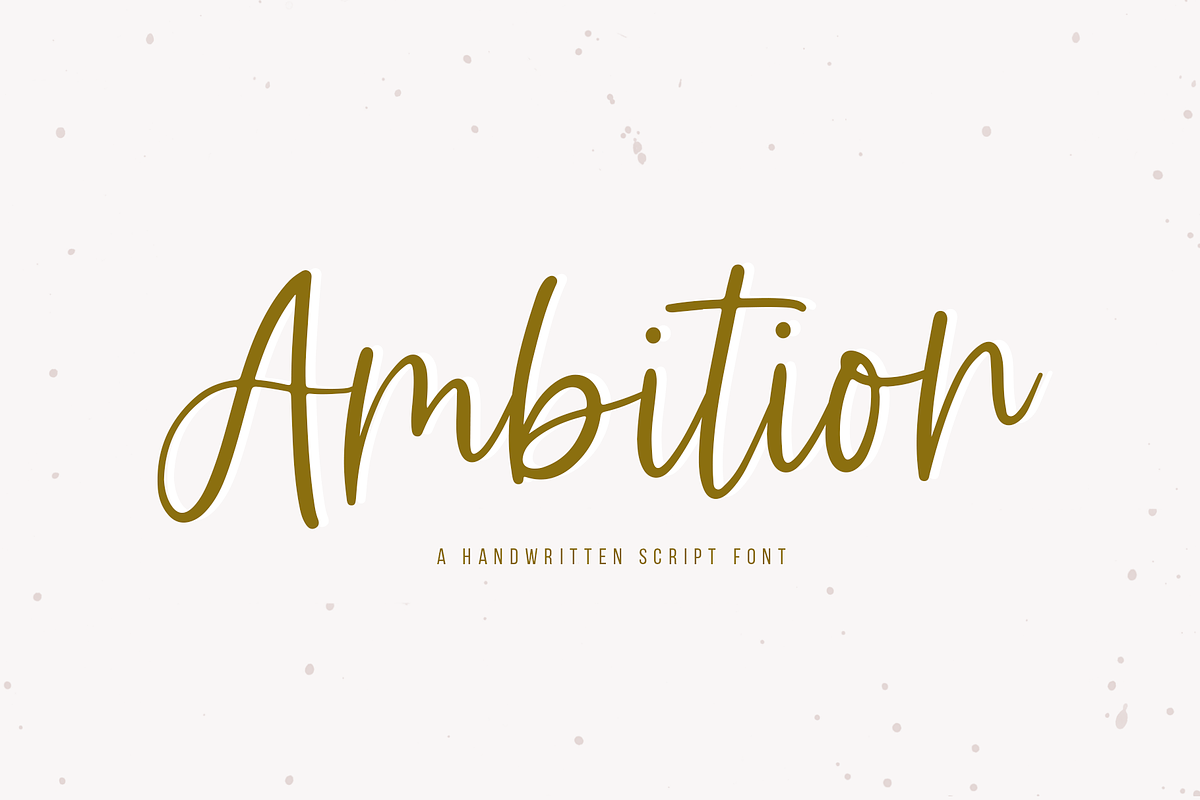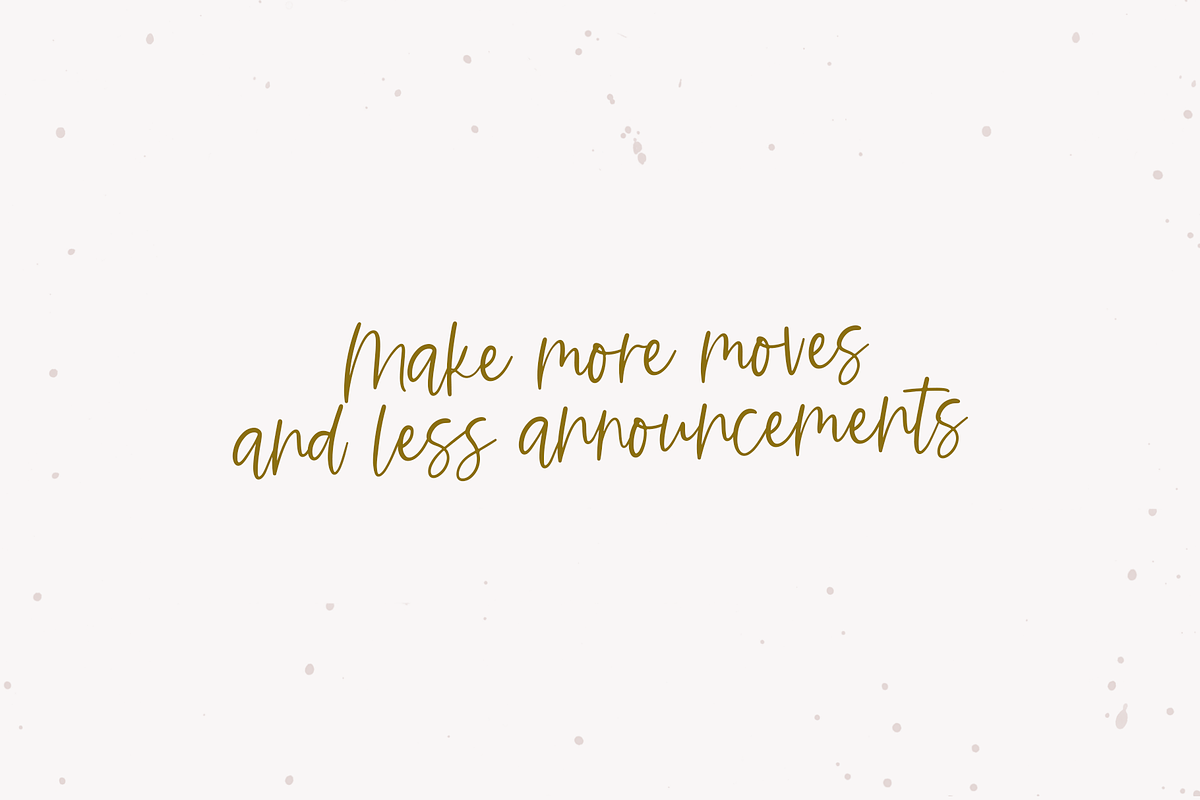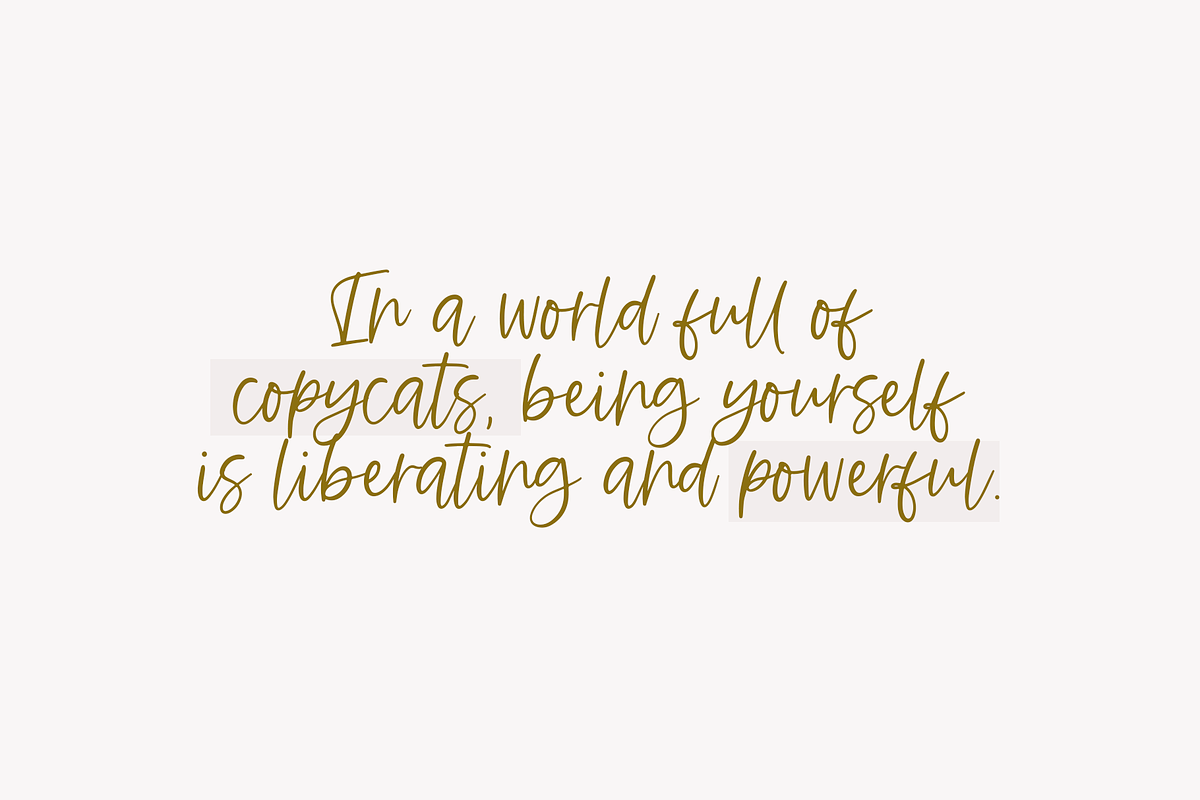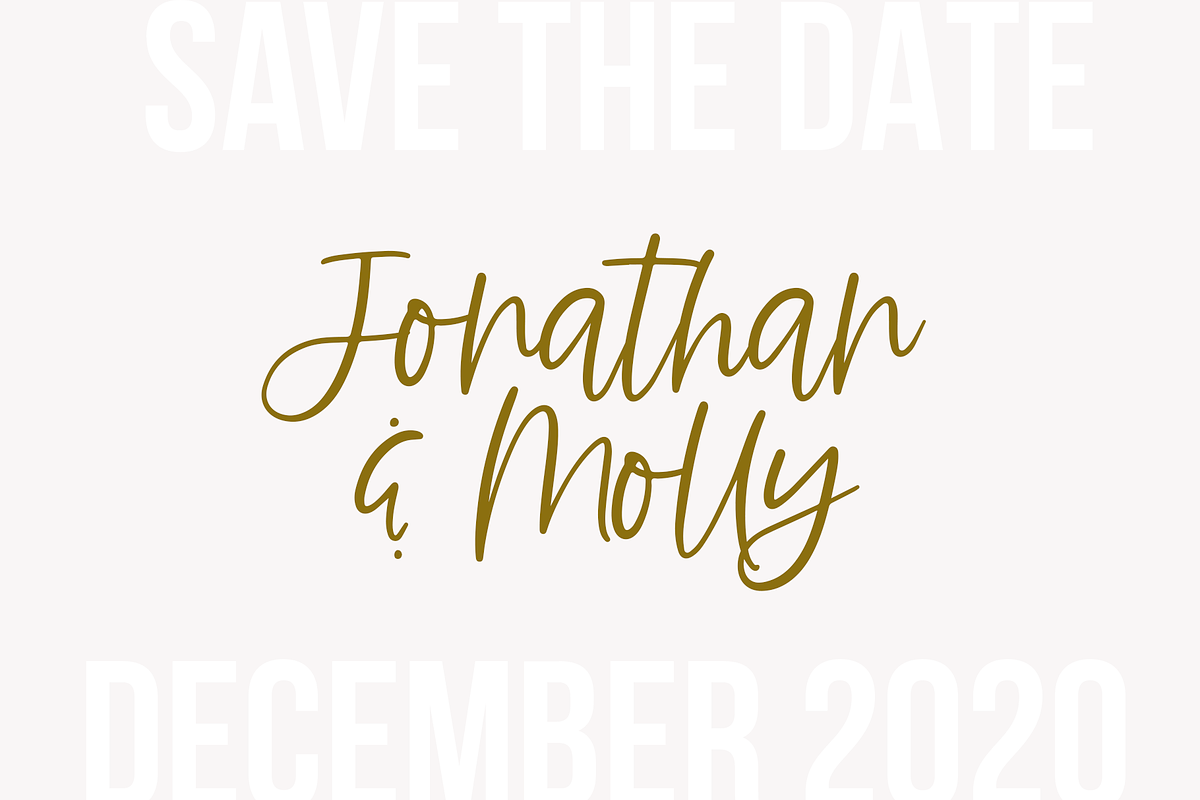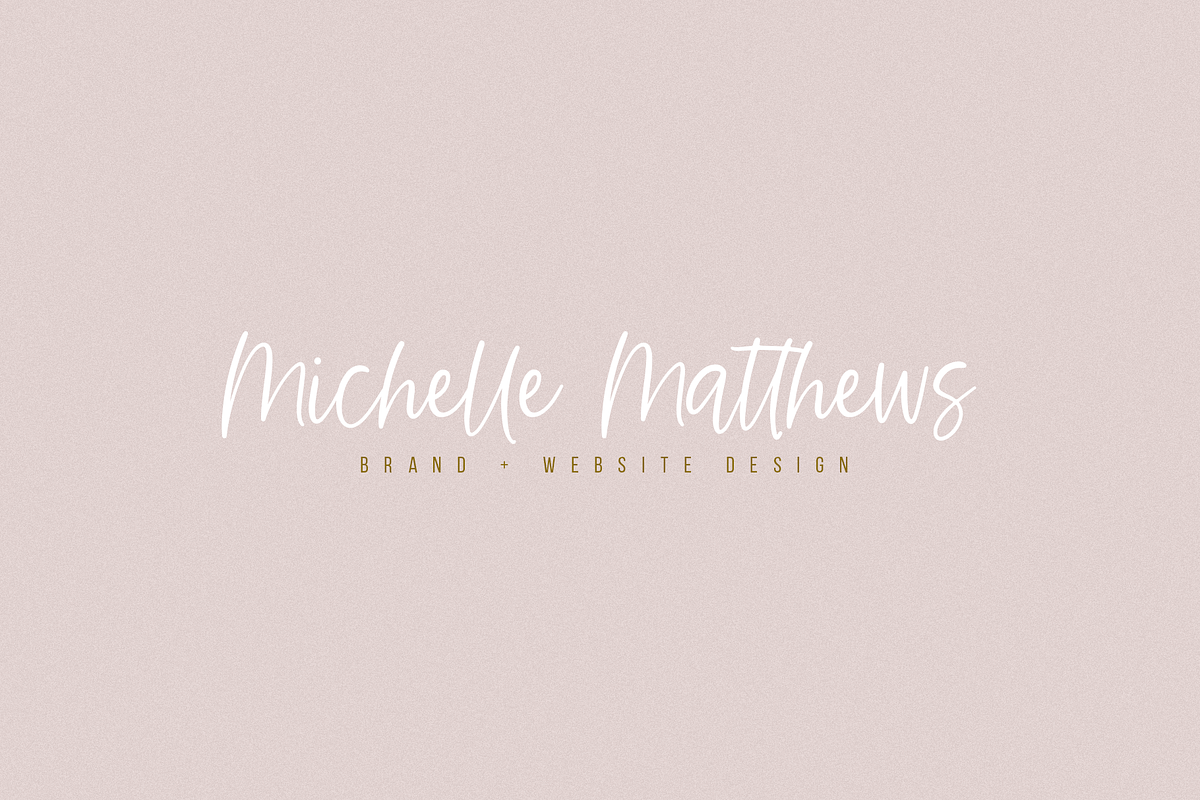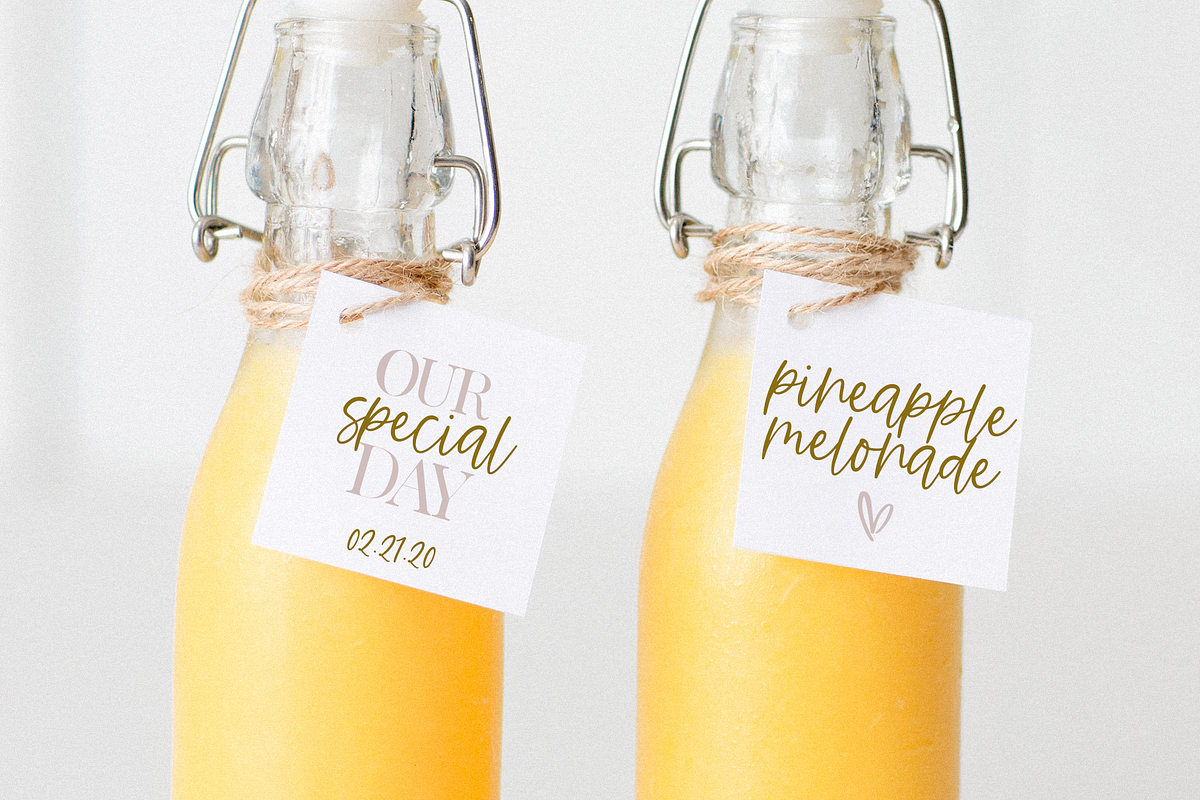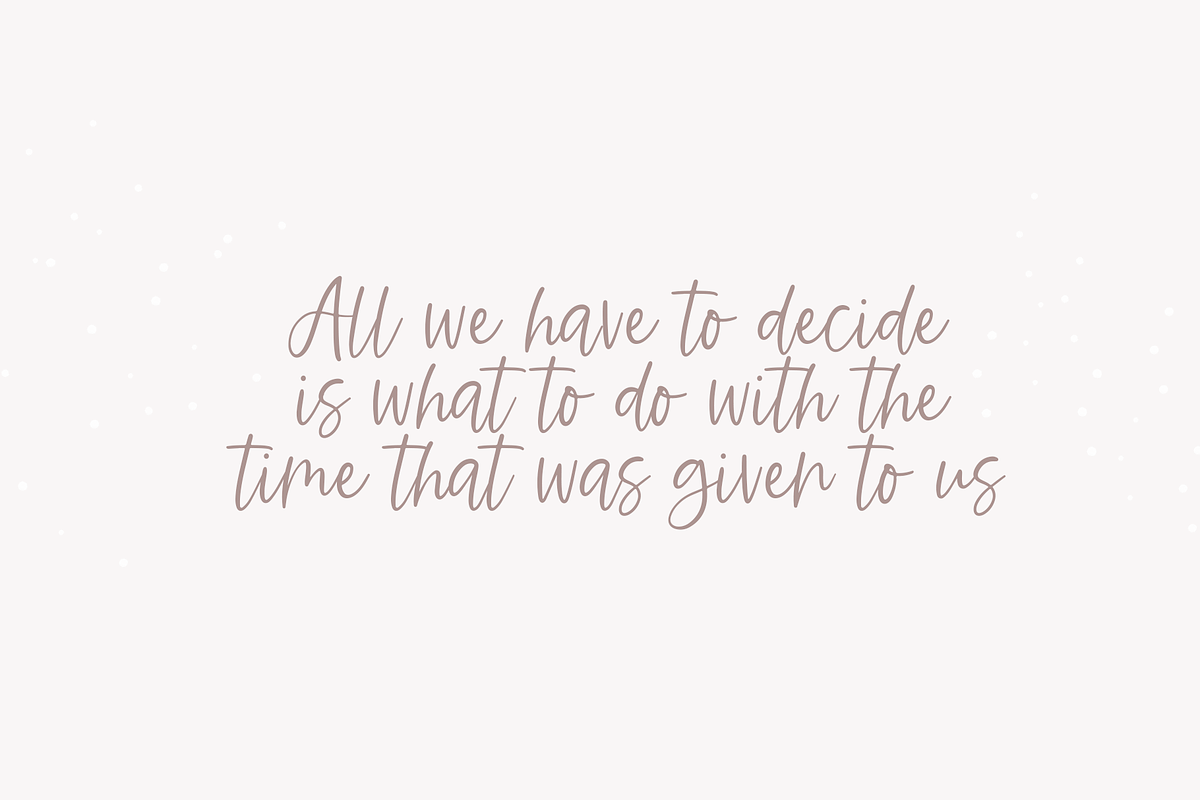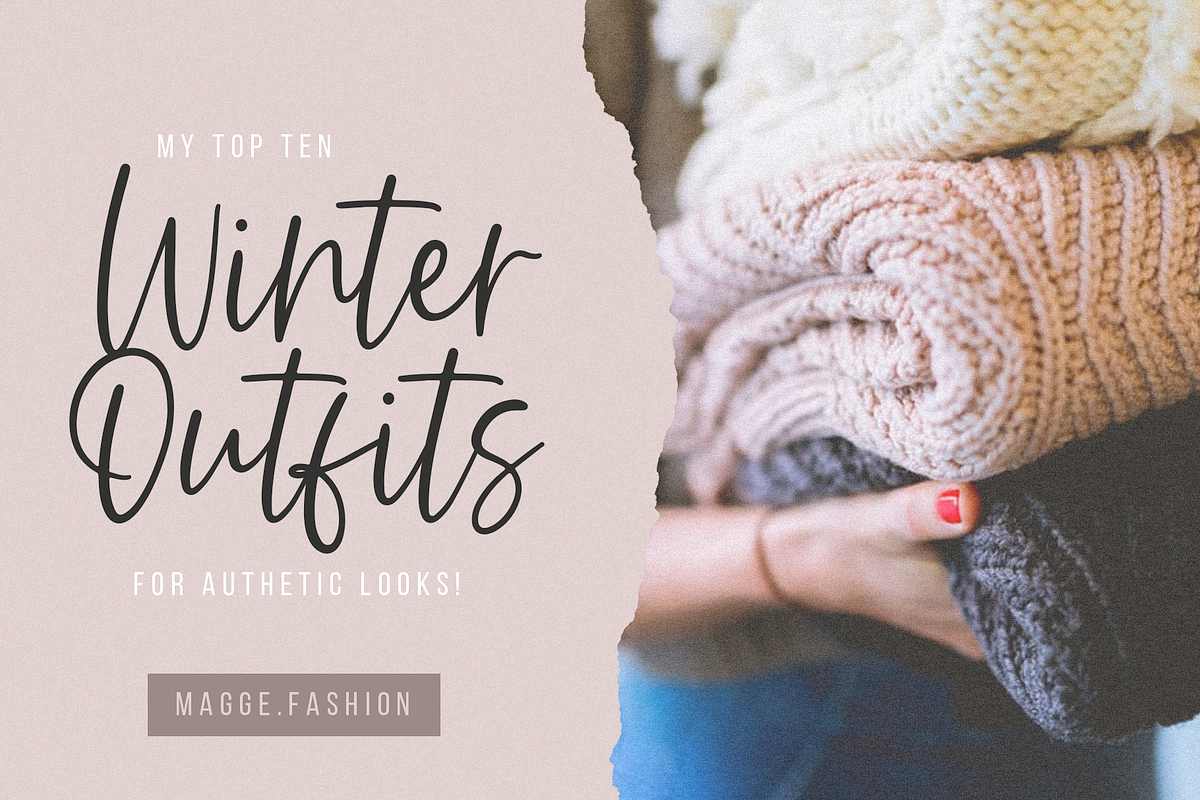
Ambition | Handwritten Script Font
Ambition is a chic handwritten font with a bouncy look. It is easy to read - making it perfect for branding and digital designs. Use this font for logos, social media, websites, blogs, instagram, business cards, branding, and more!
- Most accent characters included.
Ambition | Handwritten Script Font by KA Designs fits naturally into Branding, posters, packaging, typography.